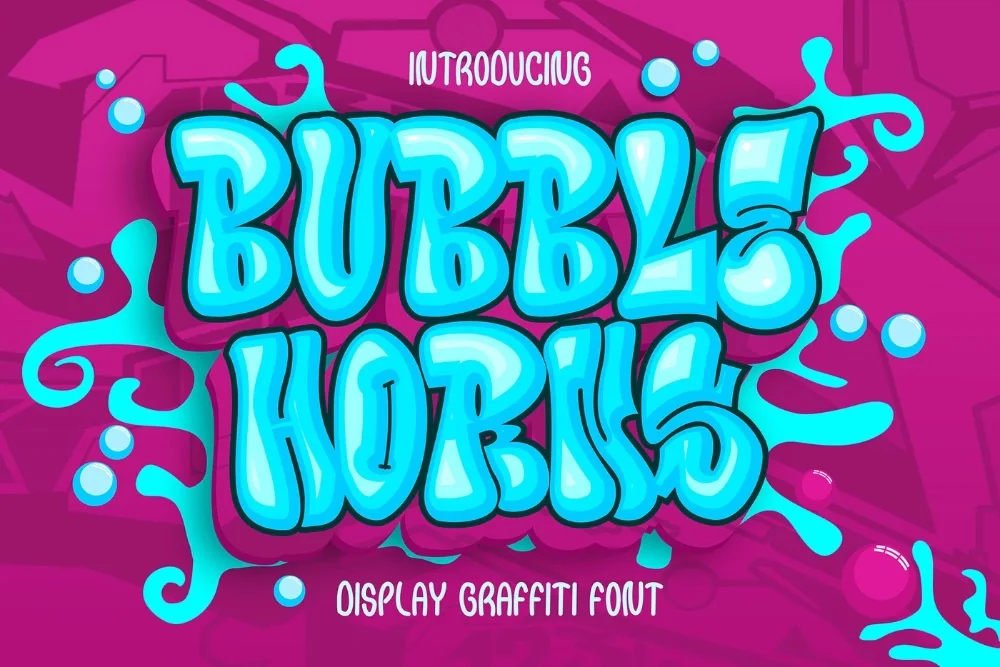
Horned Bubble Letter Font
There is no shortage of options when you search for a bubble graffiti alphabet, so here is precisely what makes this one different. Soft bubble bodies finished with sharp little spikes. The contrast between round and pointed is what makes it memorable.
Each character keeps a rounded core, then throws off two or three angular horns at the top and side. Those spikes overlap neighbouring letters slightly when spacing is tightened.
A good match for gaming logos, energy-drink style branding, streetwear graphics, and video thumbnails.
Give it room. Crowding this kind of alphabet against the edge of a layout wastes the shapes, and a generous margin does more for the design than any extra effect.